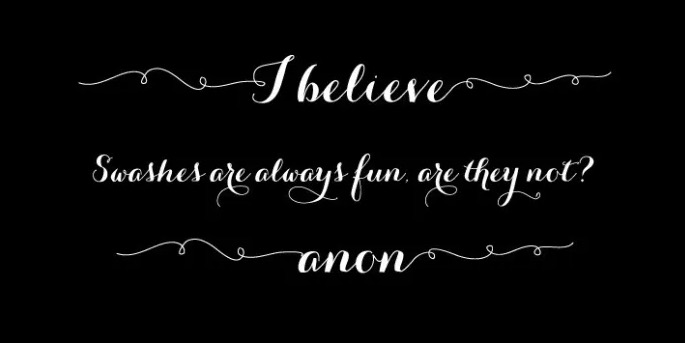
Carolyna Pro Black Font
Carolyna Pro Black is an elegant and flowing Calligraphy font. It is PUA encoded so that you can access all of the swashes & glyphs! It features readability in mind along with more than 1000 characters that make it works well with OpenType friendly applications. Moreover, this script font has gorgeous glyphs, smooth lines, stunning alternates, and a varying baseline. It will make each of your creations that modern.
Using this Carolyna Pro Black font
Carolyna Pro Black has a very friendly impression, especially with some very gorgeous ligatures. You can apply Carolyna Pro Black font in various designs like digital media or print such as promotions on social media, wedding invitations, business cards, logos, craft products, and more.
This is a font with many ingenious and sophisticated strokes. Combined with your creative will create individual personalities for each design product in the future.
Carolyna Pro Black Script font
Carolyna Pro Black font
Features
* Upper & lower case letters, marks and ligatures
* Advanced OpenType features
* Extensive language support